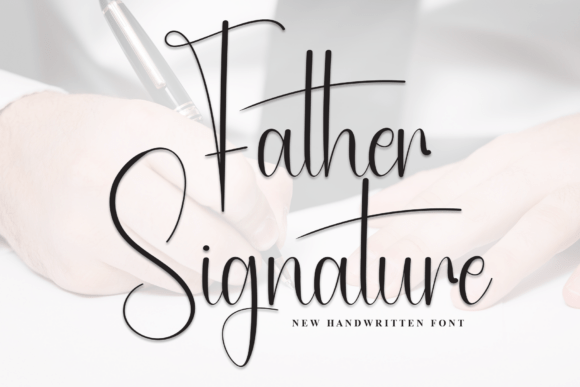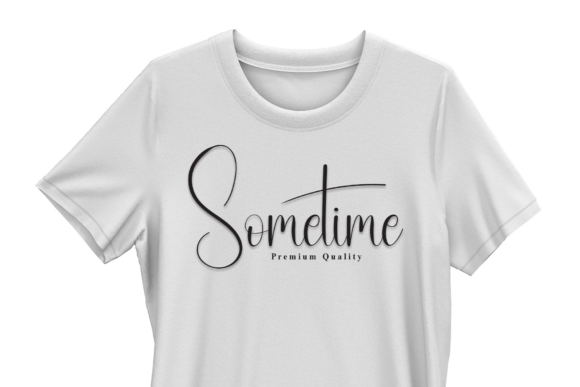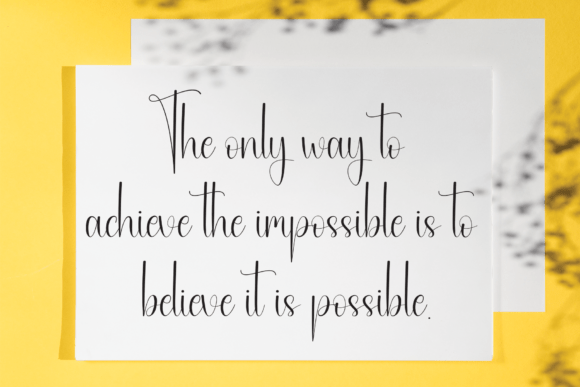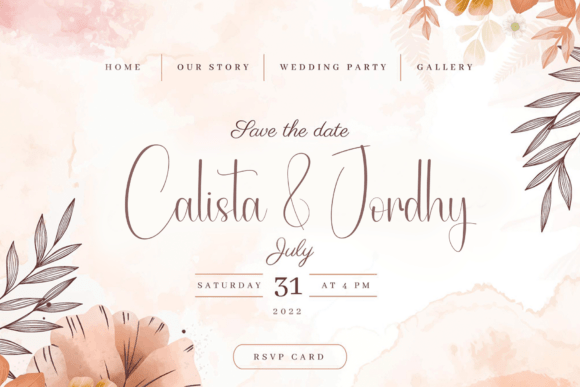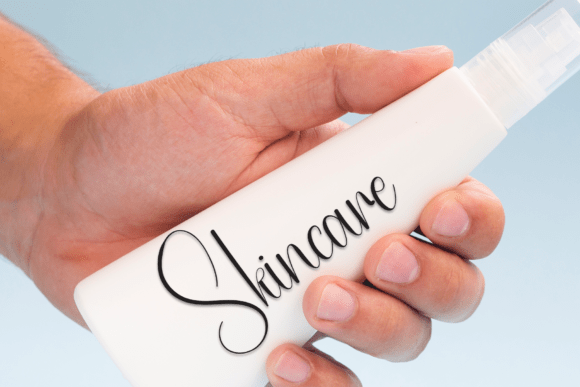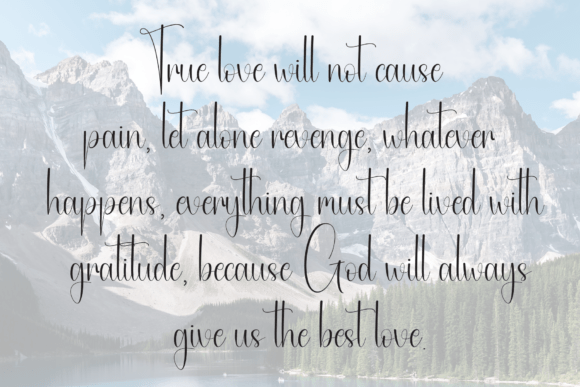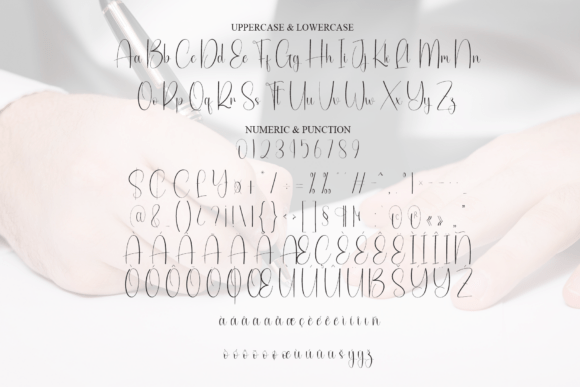
The Perfect Stroke: Elevating Your Design with the Father Signature Font
There’s nothing quite like the feeling of signing your name to a beautiful piece of work, the weight of the pen in your hand, the flow of the ink onto the page. It’s a moment of creative satisfaction that designers know all too well.
For those seeking to capture the elegance of a classic pen stroke in their designs, the Father Signature Font is the perfect tool. This refined handwritten font is designed for signature logos, luxury branding, wedding invitations, and upscale stationery, adding a touch of timeless charm to every project. With multilingual support and graceful ligatures, the Father Signature Font is a valuable addition to any designer’s toolkit.
Father Signature Font Key Features
- Unique Characteristics: The font features a distinctive, handwritten style with a touch of elegance, making it suitable for formal and informal applications.
- Font Weight: Available in Regular, Bold, and Italic styles, providing flexibility for varying design needs.
Father Signature Font Review
Overall, I think the Father Signature Font is a solid choice for those looking for a classic, elegant font. ✨ The font’s traditional feel and refined lines make it perfect for wedding invitations, business cards, or any other project that requires a touch of sophistication.
Here are some specific things that work well:
- ✨ Elegant and refined design that’s perfect for formal projects
- ✨ Highly legible, even at small font sizes
- ✨ Supports a wide range of languages, making it a versatile choice
- ⚠️ Limited character set, which may be a concern for those who need to use special characters or accents
- ⚠️ Not as versatile as some other fonts, which may limit its use in creative projects
- ⚠️ May not be the best choice for projects that require a more modern or edgy feel
Overall, I’d say the Father Signature Font is a good choice for those who want a classic, elegant look. While it may not be the most versatile font out there, it’s a solid choice for formal projects and will likely look great in most contexts.
The “Father Signature Font” is perfect for creating a personal and unique touch in various designs, such as:
- Personalized invitations and cards
- Customized logos and branding
- Special occasion graphics and designs
Alternatives to Father Signature Font for Designers
Pacifico is a beautiful, elegant script font perfect for creating a sense of sophistication and luxury. It’s ideal for use in wedding invitations, branding materials, and any project where a touch of class is needed.
Compared to Father Signature Font, Pacifico has a more refined and delicate look, making it suitable for a wider range of applications, from formal events to high-end products.
Great Vibes is a lively, energetic script font that adds a playful touch to any design. It’s perfect for use in social media graphics, advertisements, and any project where a fun and youthful vibe is needed.
Compared to Father Signature Font, Great Vibes has a more dynamic and carefree feel, making it ideal for projects that require a lot of energy and creativity.
Alex Brush is a elegant, handwritten font with a touch of sophistication and whimsy. It’s perfect for use in branding materials, product packaging, and any project where a personal touch is needed.